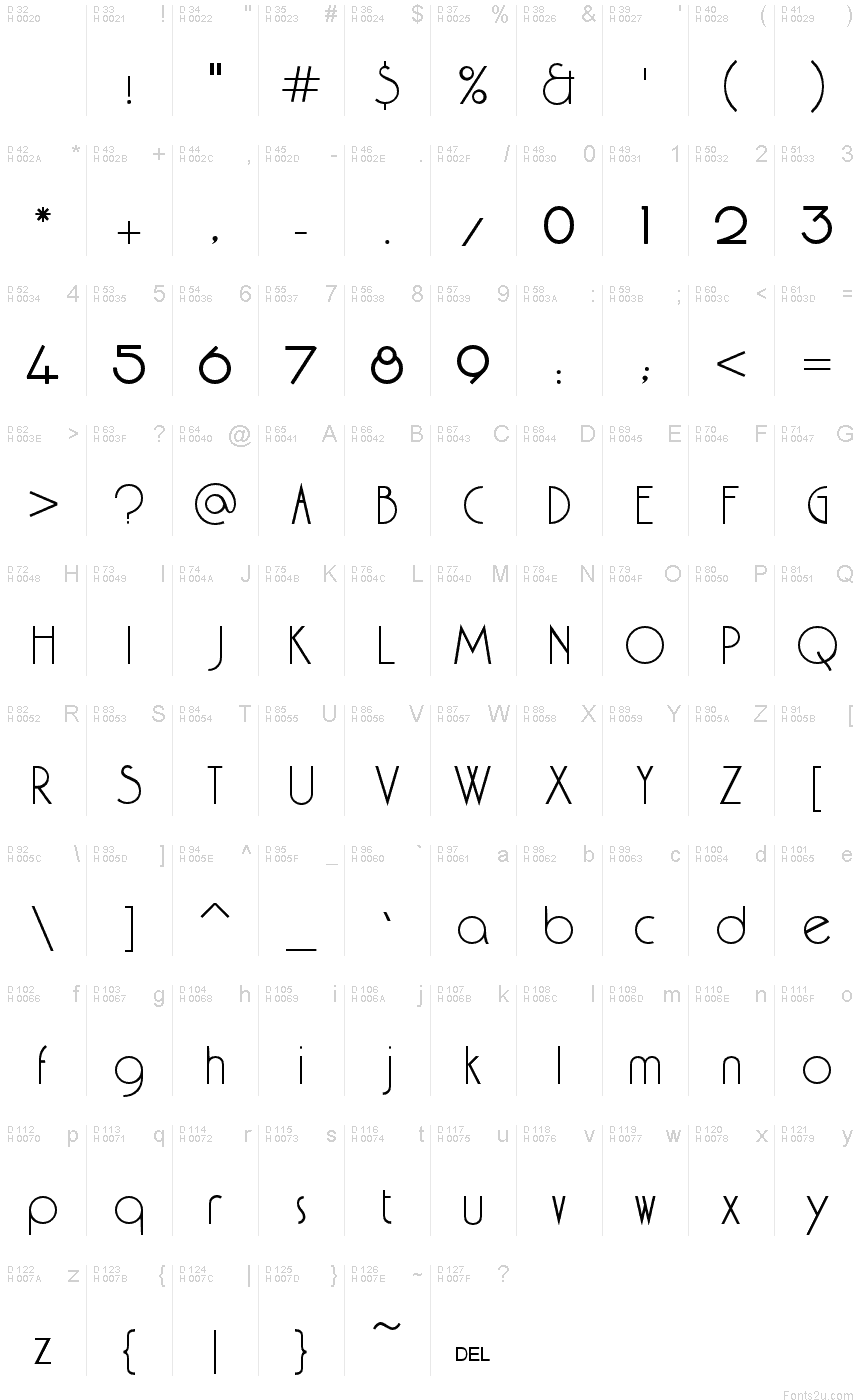
AGA Sindibad V.2 by Mohammad Alagha of Almedia Interactive Ltd. is a free high-contrast sans serif with tall, slender proportions. Broad curves meet sharply tapered strokes, giving the letters an elegant but slightly eccentric silhouette. The angular capitals are especially distinctive.
Fashion and contemporary culture are a natural match for this lettering, particularly in magazine covers, event posters, and boutique branding. The sharp geometry gives each setting a crisp edge, and the softer curves prevent the lettering from looking severe. Its mix of sweeping curves and needle-fine lines also suits fragrance packaging and album artwork, especially for subjects rooted in luxury, nightlife, or experimental music.